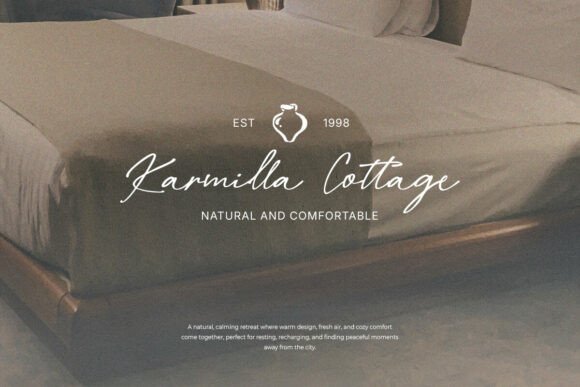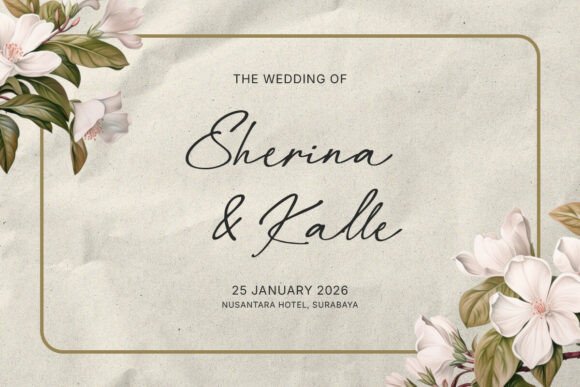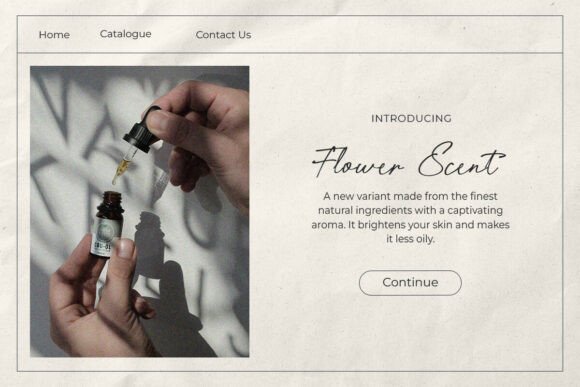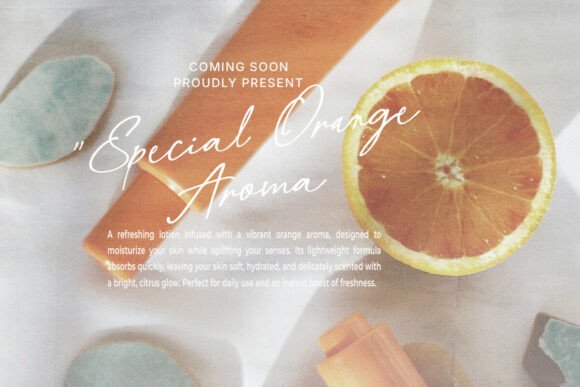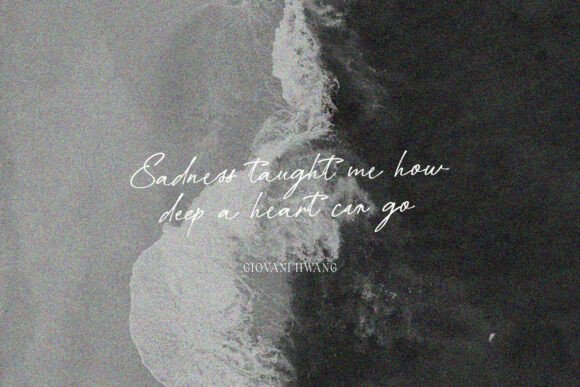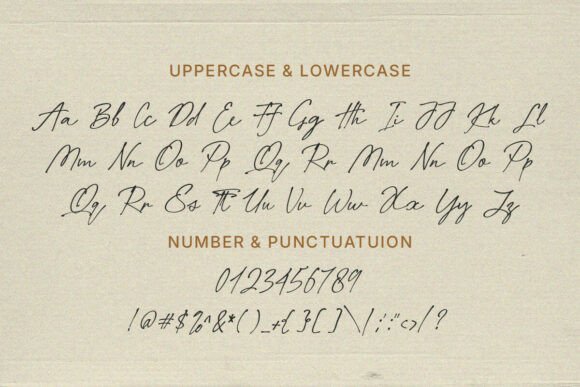
Introduction to Befallite Script Font
Befallite Script is a graceful and authentic signature script typeface, capturing the organic, confident flow of genuine handwriting.
This beautiful Befallite Script font features a natural, slightly fast-paced movement and fluid, continuous connections that make it perfect for adding a personalized, custom touch to any design Its sophisticated stroke variations and clean, legible structure ensure it looks professional while retaining its handcrafted charm.
Key Features of Befallite Script Font
Why Choose Befallite Script Font?
Befallite Script Font offers exceptional quality and versatility, making it a valuable addition to your design toolkit. Whether you’re creating for personal projects or commercial use, Befallite Script Font delivers professional results.